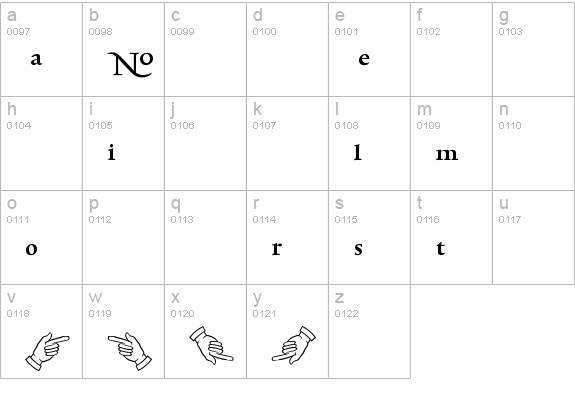
TriniteNo2-MediumWidePi is a versatile and eye-catching font that combines modernity with a touch of elegance. With its medium width and well-balanced proportions, this font is perfect for a wide range of design projects. Whether you're creating a logo, designing a website, or working on a print project, TriniteNo2-MediumWidePi will make your typography stand out. This font features clean lines and sharp edges, giving it a contemporary and professional look. The medium weight adds a sense of stability and readability, making it suitable for both headlines and body text. The wide character set includes uppercase and lowercase letters, numbers, punctuation marks, and special symbols, allowing you to express your creativity without limitations. One of the best features of TriniteNo2-MediumWidePi is that it is free. That's right, you can freely download this font at FontsMarket.com. This means that you can use it in personal and commercial projects without any restrictions. Whether you're a professional designer or just starting out, having access to high-quality fonts like TriniteNo2-MediumWidePi can elevate your work to a whole new level. So why wait? Head over to FontsMarket.com and download TriniteNo2-MediumWidePi today. With its sleek design, versatility, and the fact that it's freely available, this font is a must-have for any design enthusiast. Whether you're working on a branding project, creating eye-catching posters, or designing a stunning website, TriniteNo2-MediumWidePi will help you make a lasting impression.